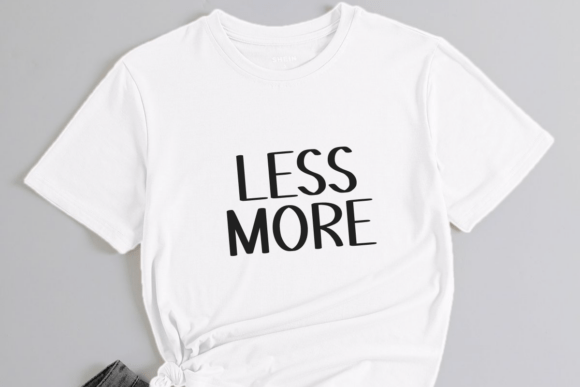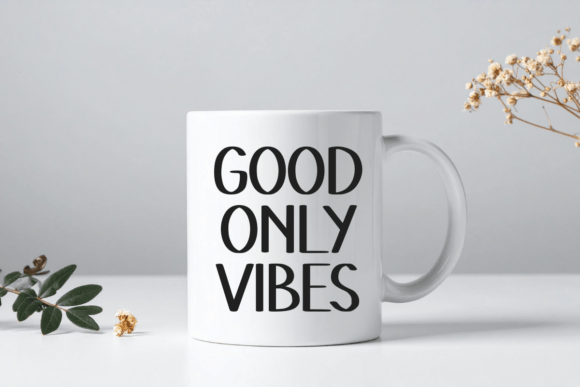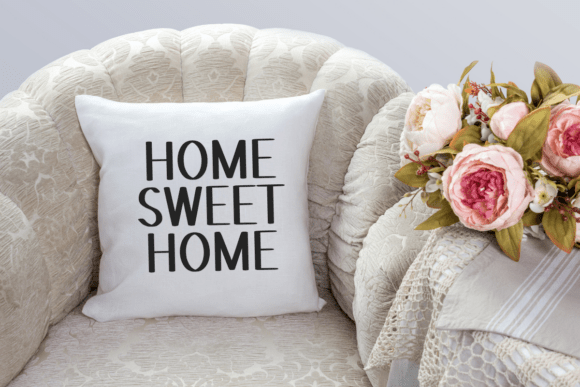
Positive Kindness is a cute handwriting font designed with a soft, friendly, and natural look.
This font brings a warm handcrafted feeling that works beautifully for craft projects, planners, stickers, kids’ worksheets, classroom printables, and DIY designs Its simple strokes and smooth curves make it easy to cut using Cricut and Silhouette, and perfect for crafting moms who love adorable handwritten styles.